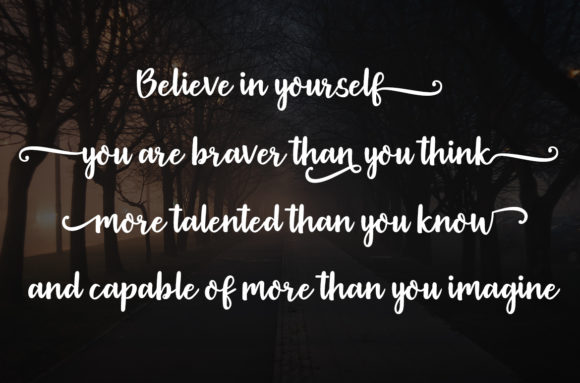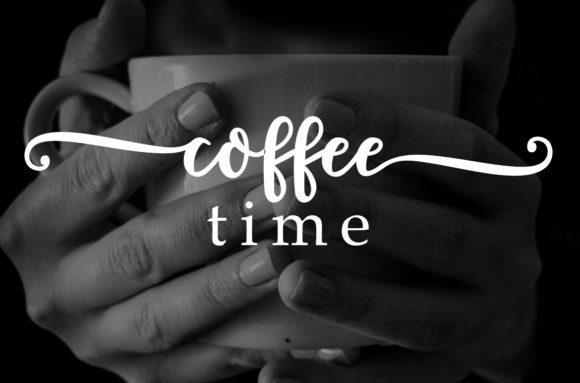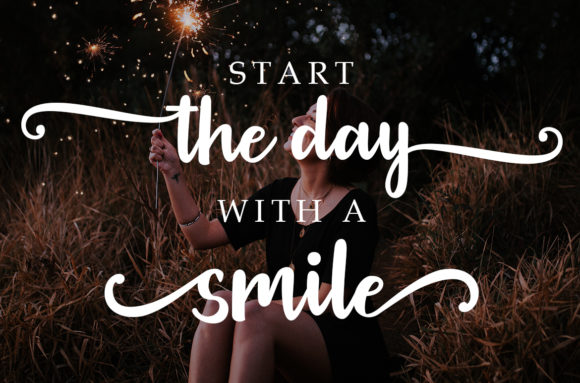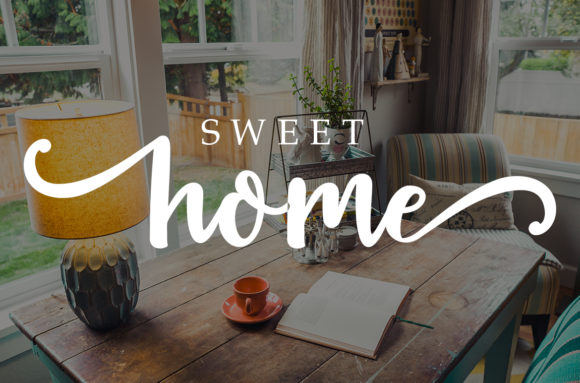
Introduction to Gethania Script Font
Have you ever been working on a creative project and suddenly, the perfect font comes to mind, elevating the entire design? For designers, this moment is pure magic. It’s the moment when all the pieces fall into place, and the project starts to shine. For me, that moment came when I stumbled upon the Gethania Script Font. Its beautiful swashes and elegant look are truly breathtaking.
The Gethania Script Font is more than just a pretty face; it’s a valuable design resource that can take your projects to the next level. With its high quality and versatility, it’s perfect for a wide range of creative endeavors, from wedding invitations to branding materials. And the best part? You can download it for free, giving you the freedom to experiment and push the boundaries of your design.
Key Features of Gethania Script Font
- High-quality script font suitable for creative projects, perfect for adding a personal touch to designs.
- Designed with a unique, elegant style, making it perfect for titles, headings, and other decorative text elements.
Honest Review: Gethania Script Font
I recently had the chance to work with the Gethania Script Font and I must say, it’s been a game-changer for my creative projects. This free download has been a valuable addition to my design resources.
- ✨ High-quality lines and letterforms create a beautiful, elegant feel that’s perfect for wedding invitations, signage, or any other project where a touch of sophistication is needed.
- ✨ The font is highly customizable, making it easy to adjust the spacing, size, and color to fit your design needs.
- ✨ The transparent background makes it easy to layer over images or use as a standalone element.
- ⚠️ The font is not ideal for large blocks of text, as the connections between letters can become unclear at bigger sizes.
- ⚠️ Some users may find the font a bit too ornate, which can be a drawback if you’re looking for something more minimalist.
Overall, I’m really impressed with the Gethania Script Font. Its unique style and high quality make it a valuable resource for designers, and its free download makes it accessible to everyone. I’d definitely recommend giving it a try for your next creative project.
Tips for Getting the Most Out of Gethania Script Font
Experiment with different font sizes and styles to create a unique look. Use the font in combination with other design elements to create a visually appealing design.
The Gethania Script Font is perfect for wedding invitations, birthday cards, and other creative projects that require a touch of elegance and sophistication.